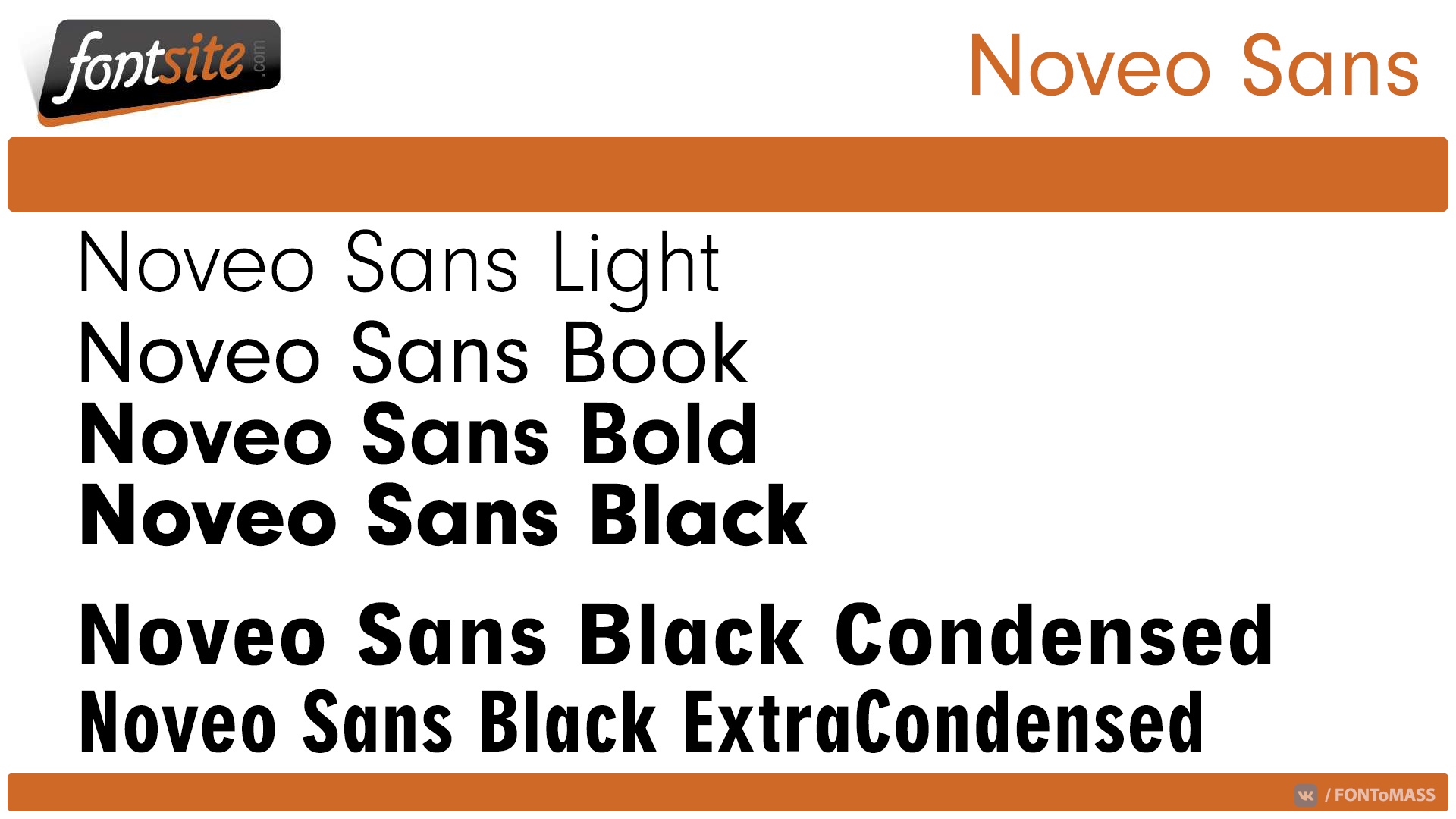
Noveo Sans Font
Noveo Sans Font is perfect for innovative tech startups, futuristic brand communications, cutting-edge digital interfaces, progressive corporate materials, modern scientific publications, forward-thinking educational platforms, next-generation product packaging, advanced research presentations, contemporary design systems, and pioneering technological communications.
What makes Noveo Sans Font so exciting is its revolutionary embodiment of technological innovation and forward-thinking design that captures the essence of future-focused communication through precisely engineered contemporary typography. This innovatively crafted typeface features clean letterforms with futuristic proportions and technology-inspired character variations that immediately convey progress, innovation, and the transformative power of advanced design thinking. The font's progressive construction and forward-looking aesthetic create an instant sense of technological sophistication and innovative vision, making it ideal for projects that need to communicate cutting-edge innovation, future-ready thinking, and the life-changing potential of technological advancement to audiences seeking authentic innovation experiences and meaningful technological progress.
The Noveo Sans Font family typically includes multiple innovative weights and futuristic styles, often featuring ultra-light through bold variations along with technologically optimized italic versions. Progressive font collections frequently offer extensive character sets including advanced OpenType features, technological symbols, and innovation-focused elements that ensure optimal typography across diverse future-oriented communication requirements and cutting-edge design applications.
The innovative nature of Noveo Sans Font makes it particularly effective for targeting demographics that prioritize technological advancement and future-thinking solutions in their professional and personal technology choices. Innovation marketers and technology developers will find this font especially valuable for materials that must establish immediate technological credibility and connect with audiences seeking authentic innovation experiences and meaningful technological advancement.
What sets Noveo Sans Font apart is its ability to convey cutting-edge innovation while maintaining the functionality necessary for effective contemporary communication across diverse applications. This balanced characteristic makes it suitable for both highly technical innovation contexts and consumer-facing technology applications where projecting technological sophistication and maintaining user accessibility must work together seamlessly.
Professional designers recognize that Noveo Sans Font brings invaluable innovation credibility to projects across industries including technology development, scientific research, progressive education, and future-oriented consulting. Its innovative character and technological appeal make it essential for organizations whose mission centers on advancing technological progress, promoting scientific innovation, and creating meaningful connections between cutting-edge thinking and practical technological solutions.
The systematically engineered innovation of Noveo Sans Font ensures consistent progressive messaging across all technology-focused communication applications while honoring the fundamental principles of forward-thinking design and technological advancement.